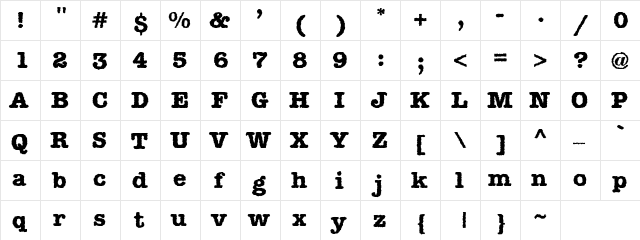
Grunge Amtype Bold Regular
Design Context for Grunge Amtype Bold Typeface
Grunge Amtype Bold trades polish for personality, using distressed and eroded forms to bring grit and attitude to creative work.
Suited to punk-influenced zines, underground music branding, streetwear, and raw, anti-corporate design.
Pro Tip: Pair Grunge Amtype Bold with intentionally raw or lo-fi design elements. Fighting against it with overly polished surroundings will undermine its personality.